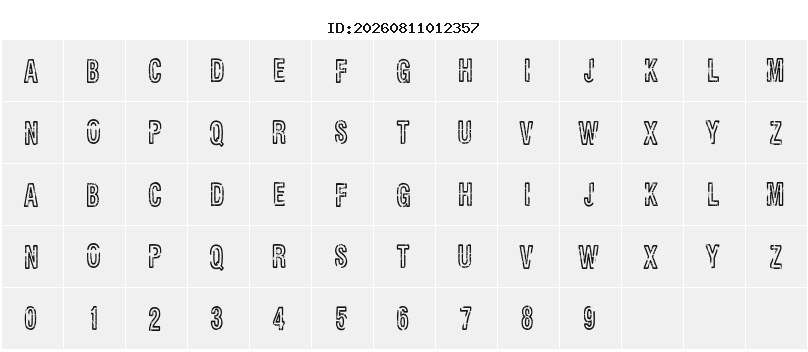
Rueckwarzsalto Preview
• Font Name: Rueckwarzsalto
• Full Font Name: Rueckwarzsalto
• PostScript Name: Rueckwarzsalto
• Manufacturer: Bumbayo
About Rueckwarzsalto.otf
Rueckwarzsalto.otf is a modern, elegant sans-serif font designed for ultimate readability and visual harmony. Perfect for branding, headlines, web design, and print materials.